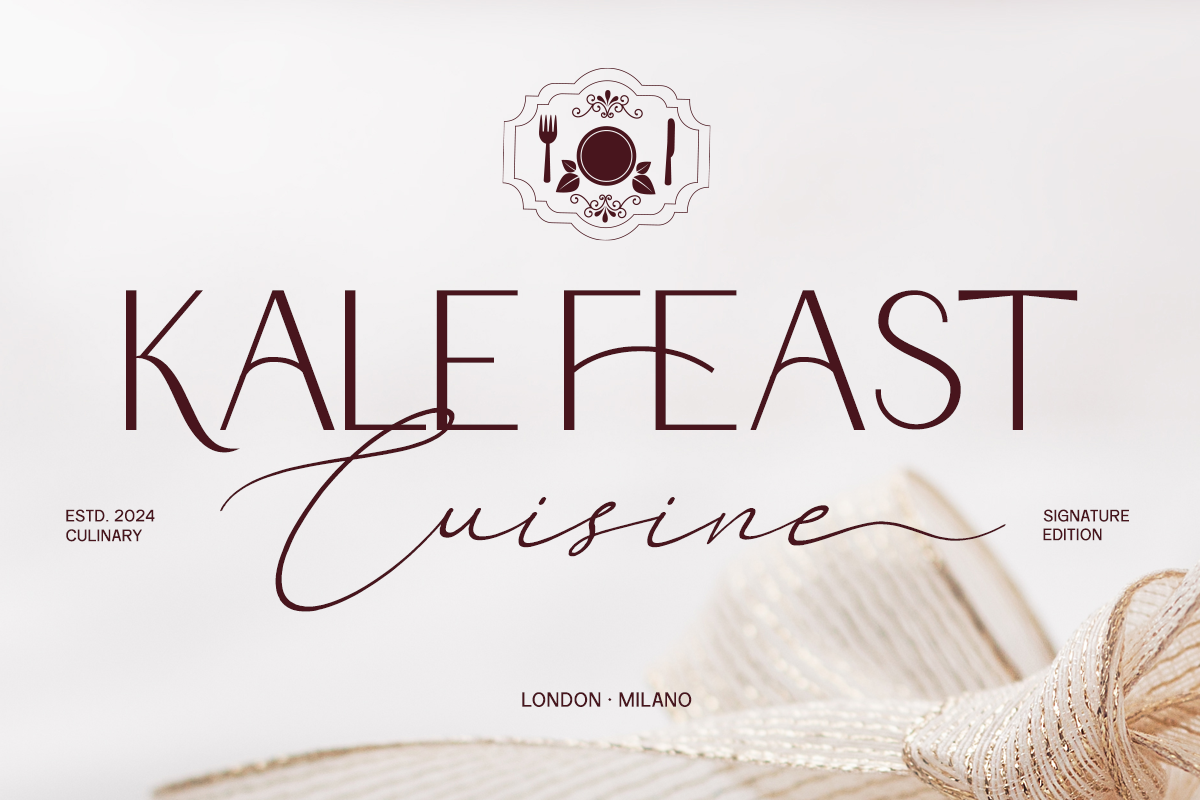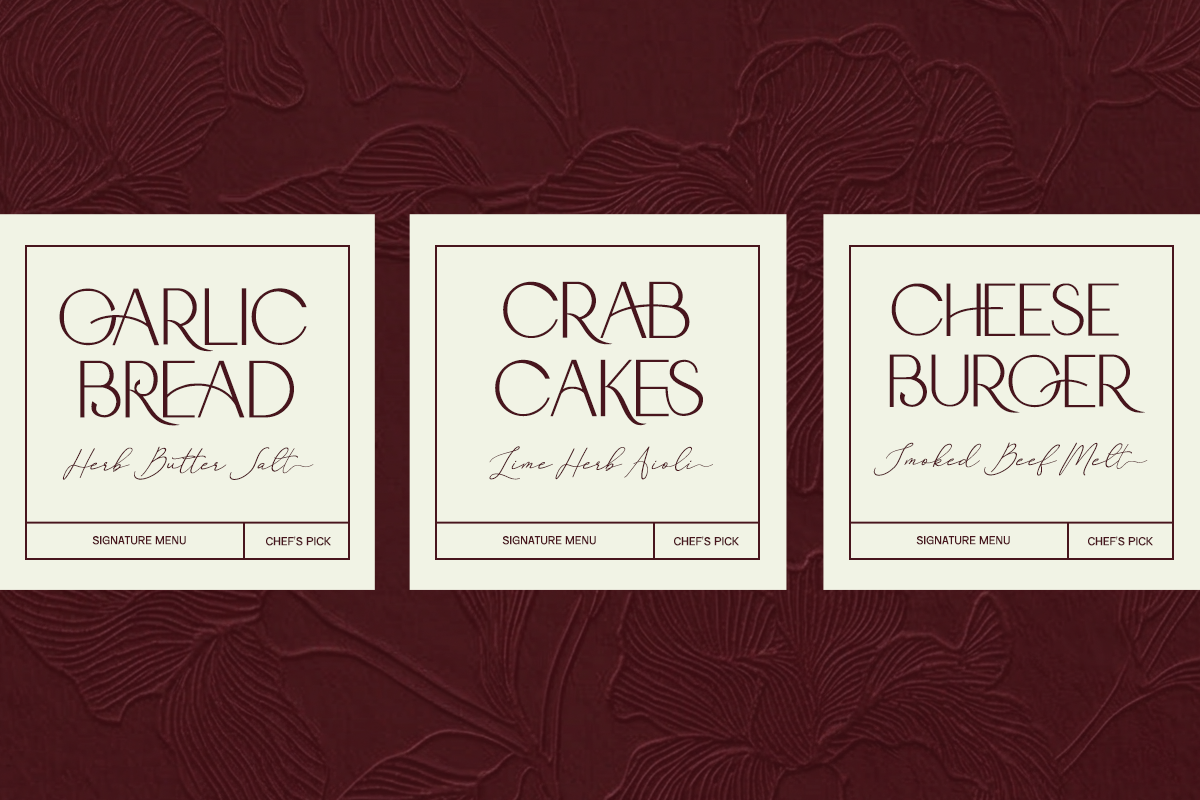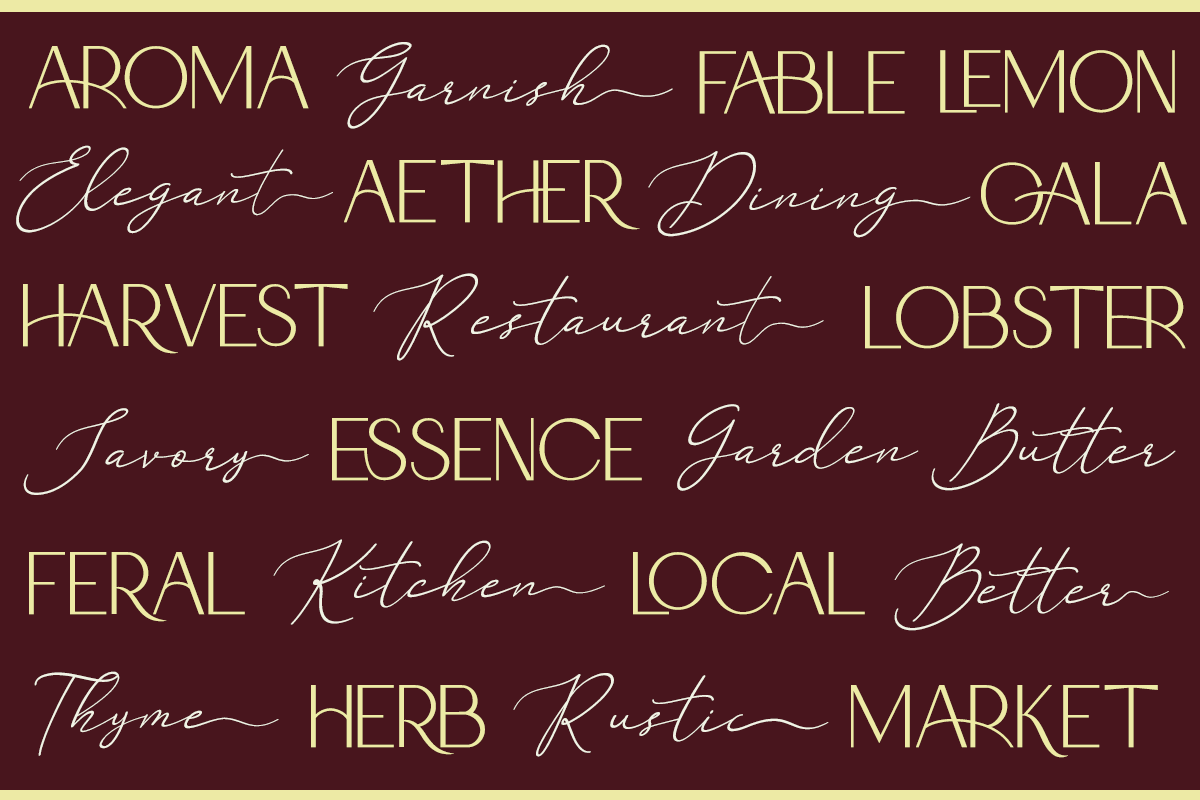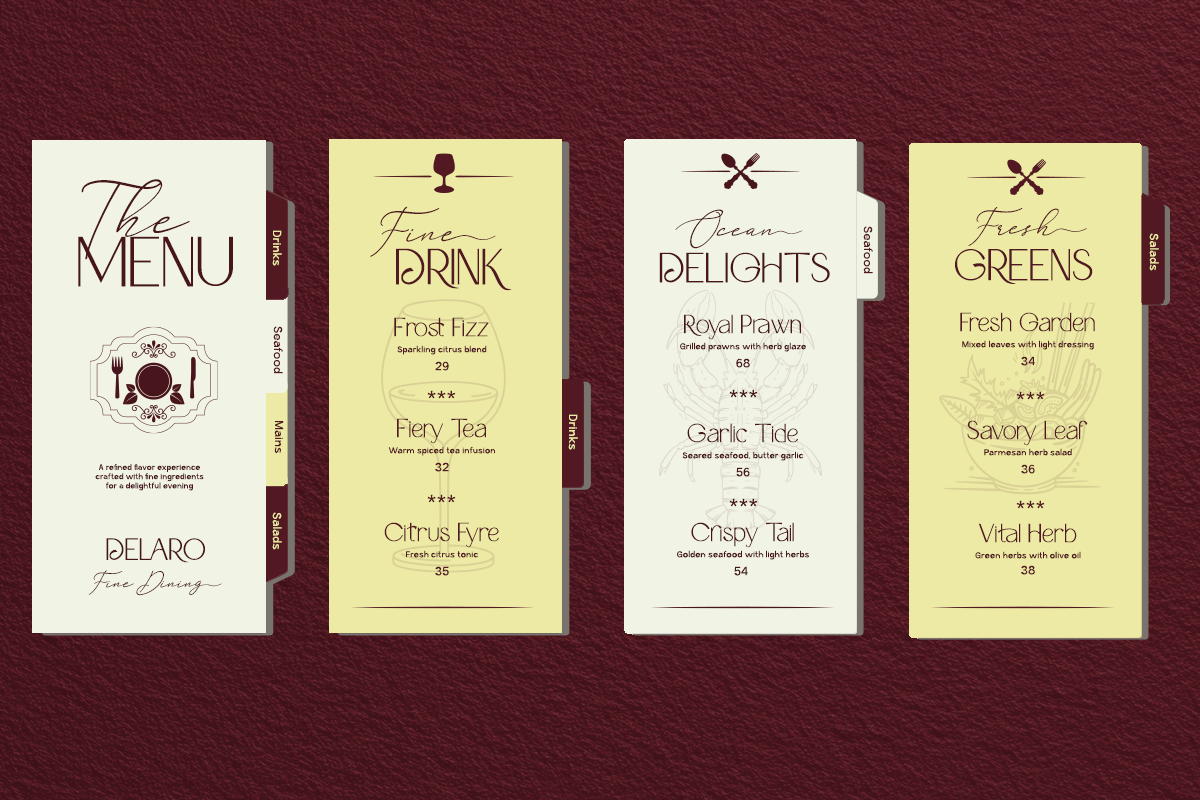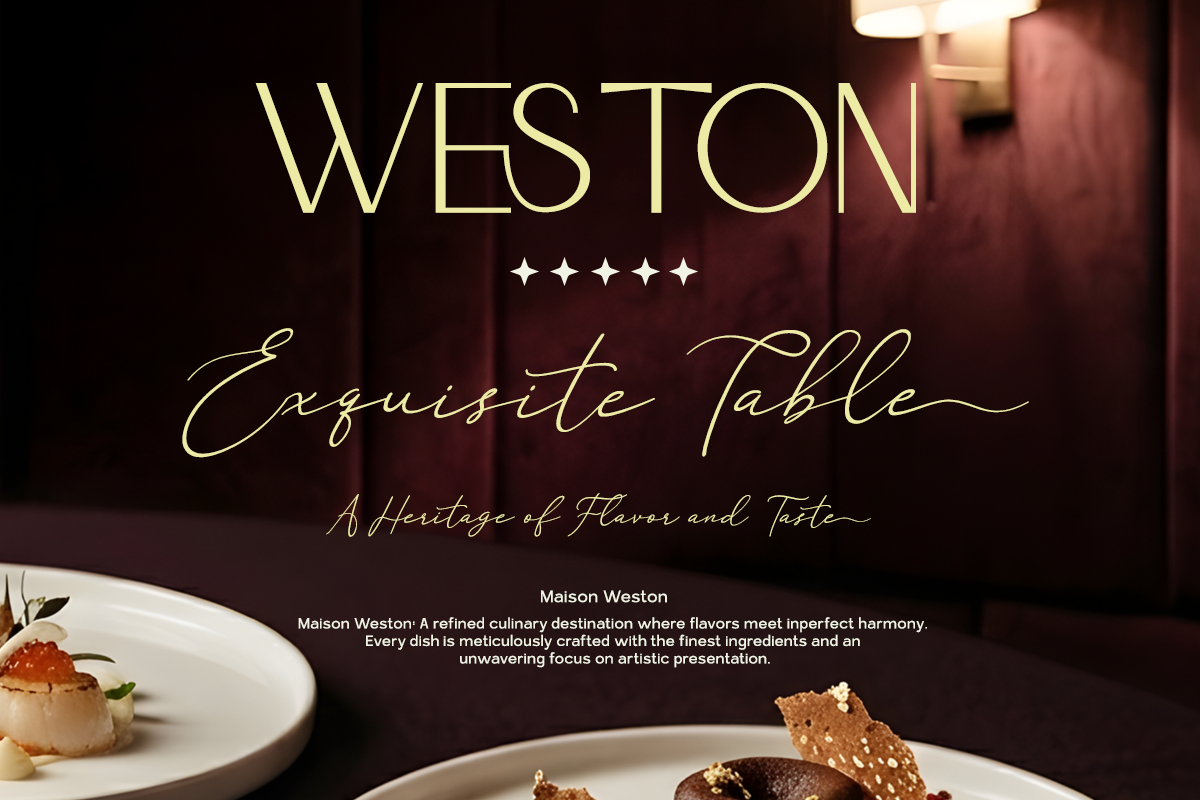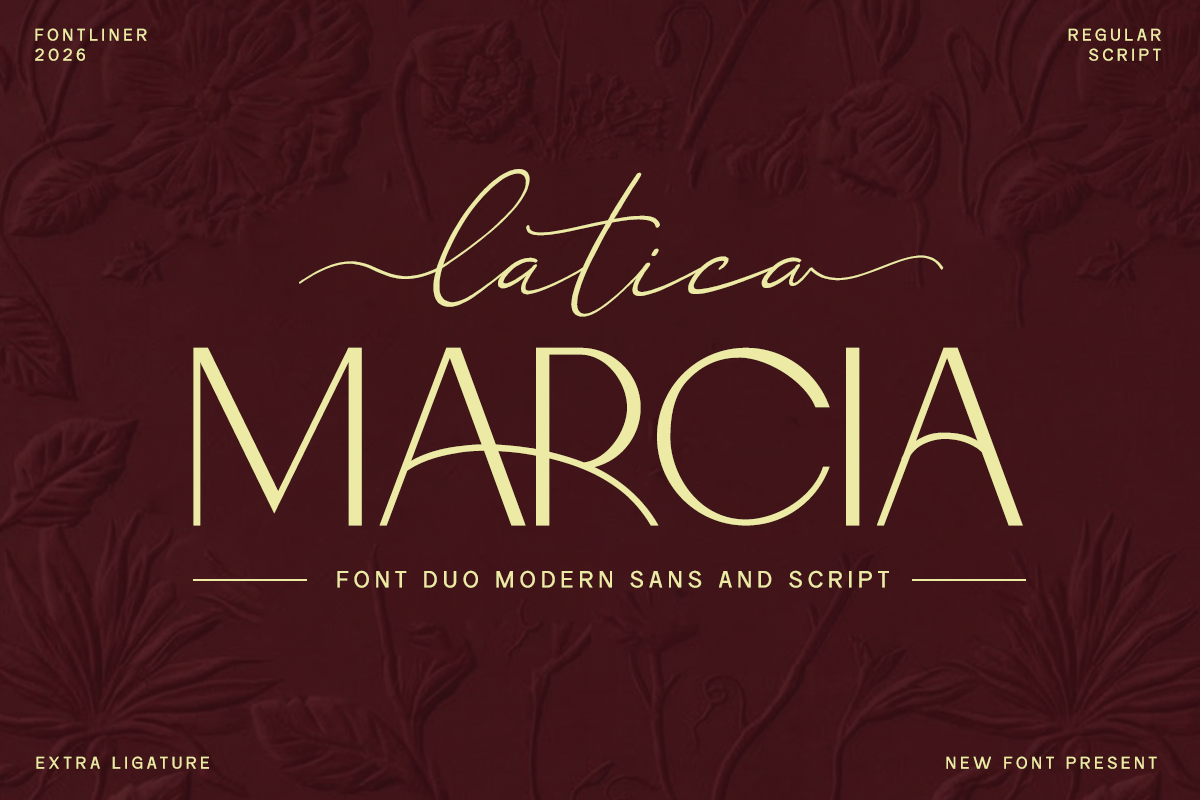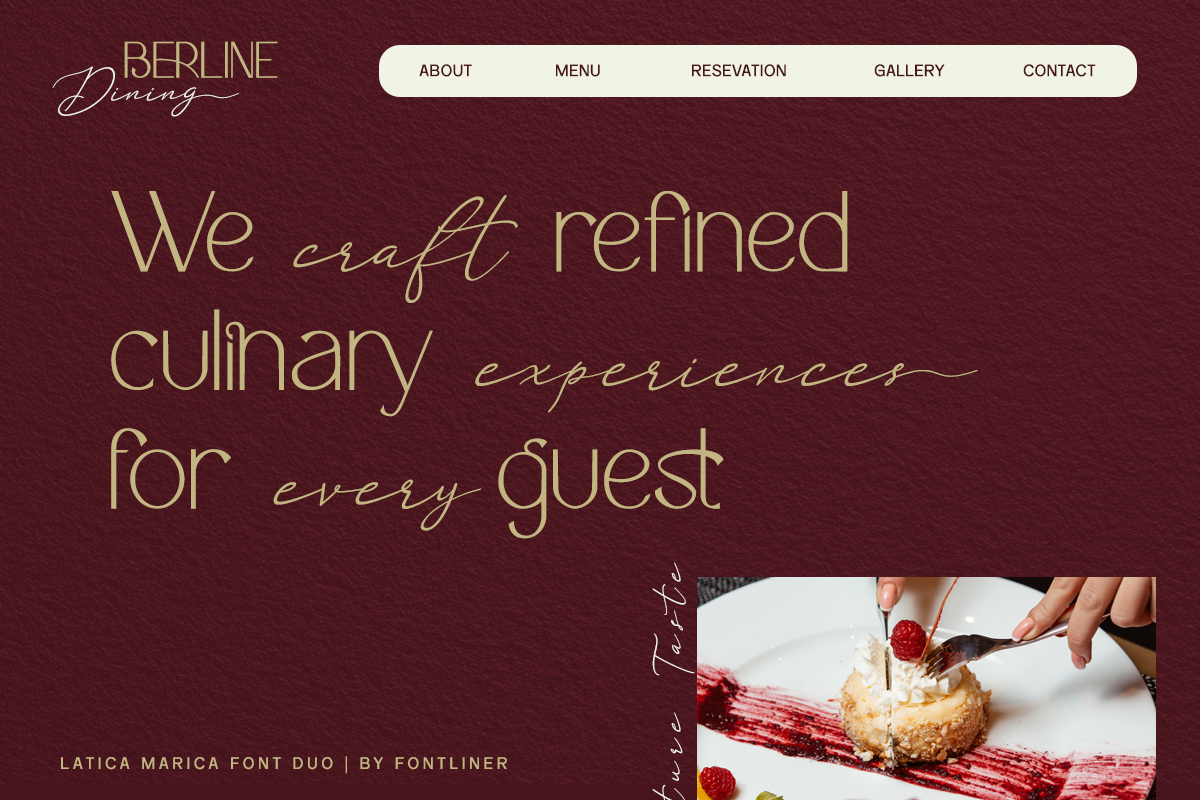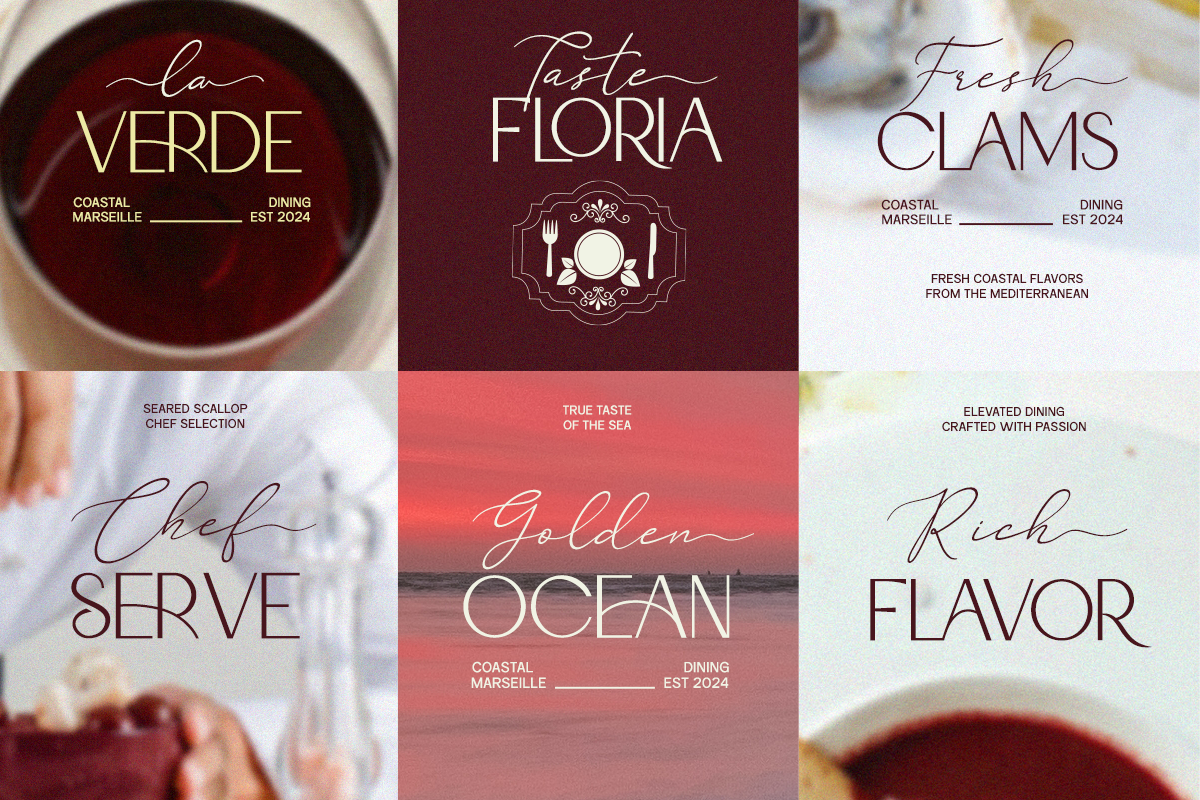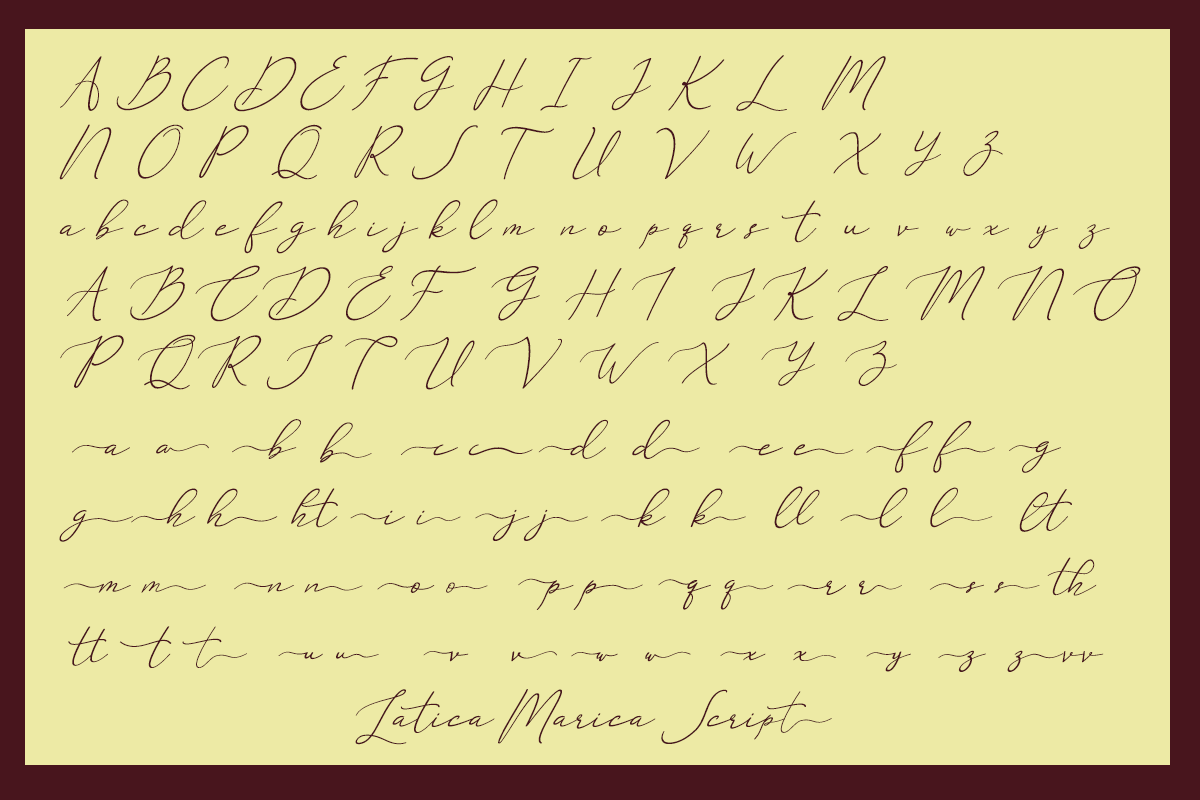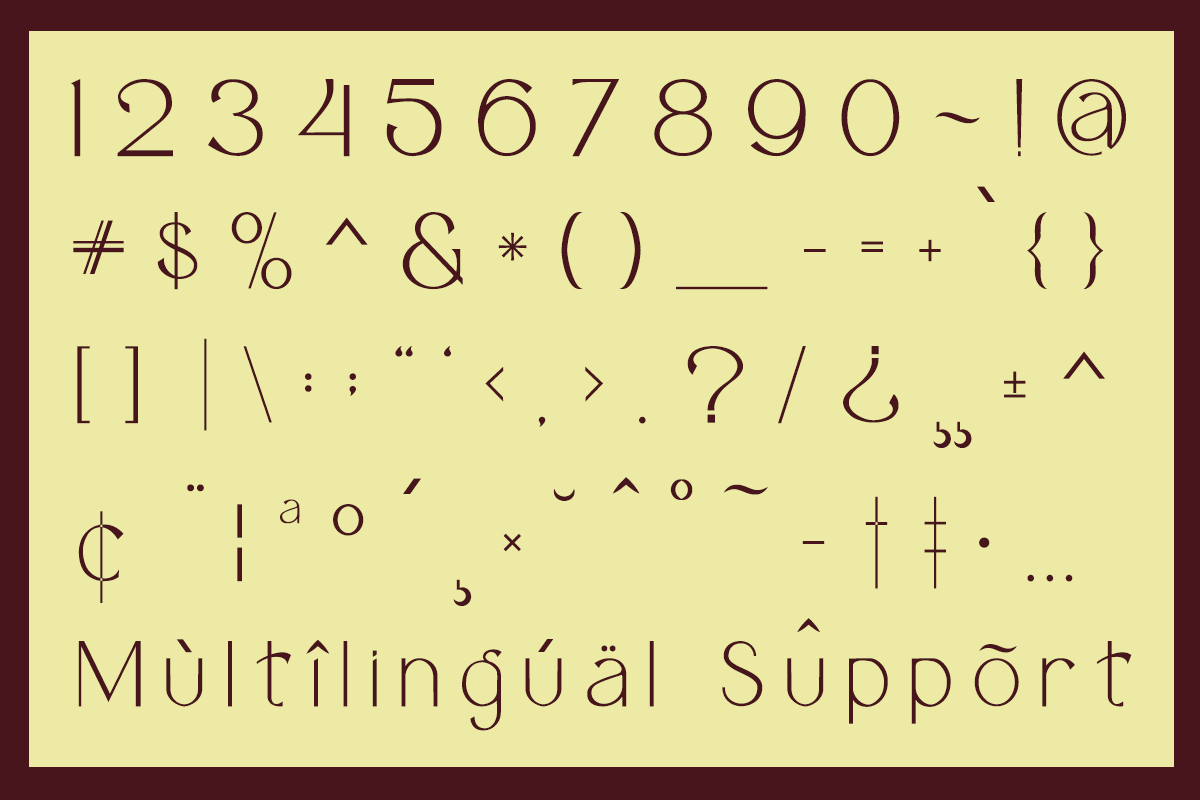
Latica Marcia - Font Duo
Latica Marcia is a modern font duo that beautifully combines a clean sans serif with an elegant handwritten script. This pairing creates a perfect harmony between structure and expression—where the sans delivers clarity and professionalism, while the script adds a touch of personality and artistic flair. The flowing strokes and smooth curves of the script style bring a natural, signature-like feel to your designs.
Crafted for versatility, Latica Marcia is ideal for branding, logos, social media, wedding invitations, and lifestyle design projects. The extra ligatures enhance the script’s authenticity, allowing seamless letter connections and more natural typography compositions. Whether you're aiming for a modern minimal look or a romantic aesthetic, this duo adapts effortlessly.
With its balanced contrast and stylish character, Latica Marcia empowers designers to create visually striking and emotionally engaging designs—making every project feel more refined, expressive, and memorable.
- Stylistic alternates
- Uppercase, Lowercase & Ligatures
- Symbol, Number and Multilingual Support